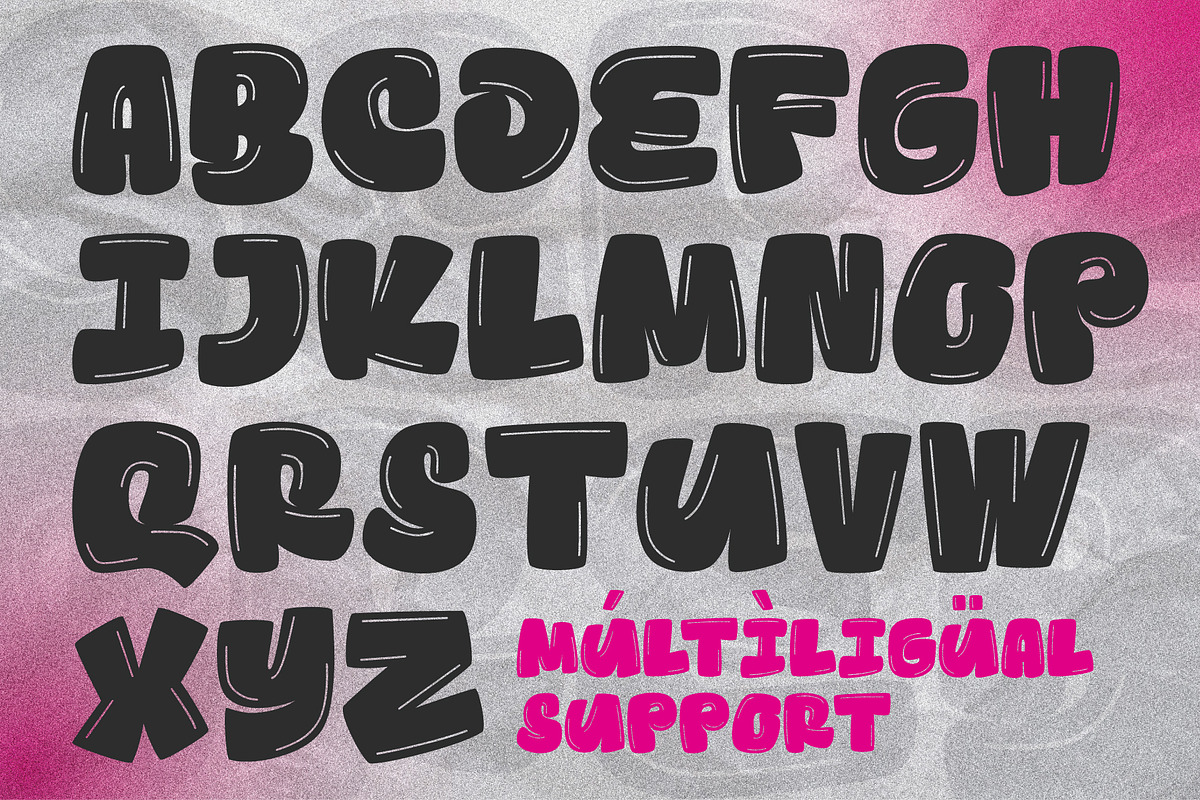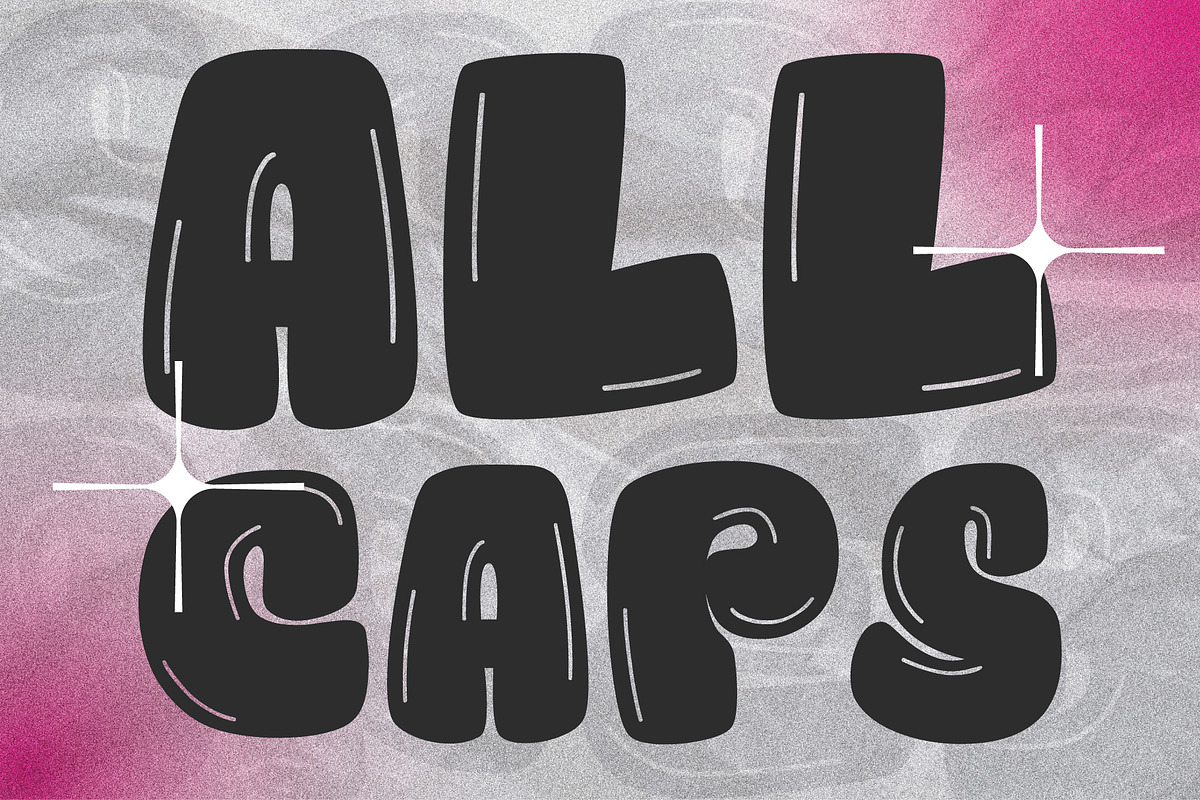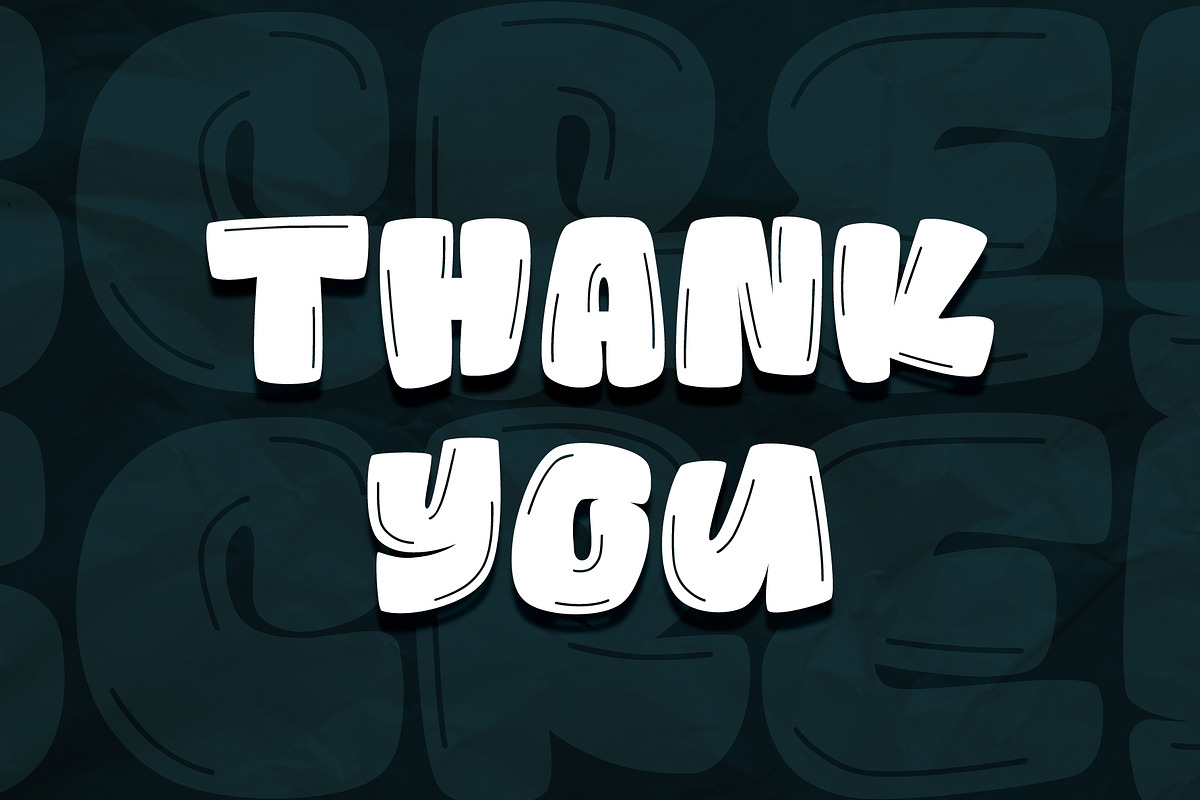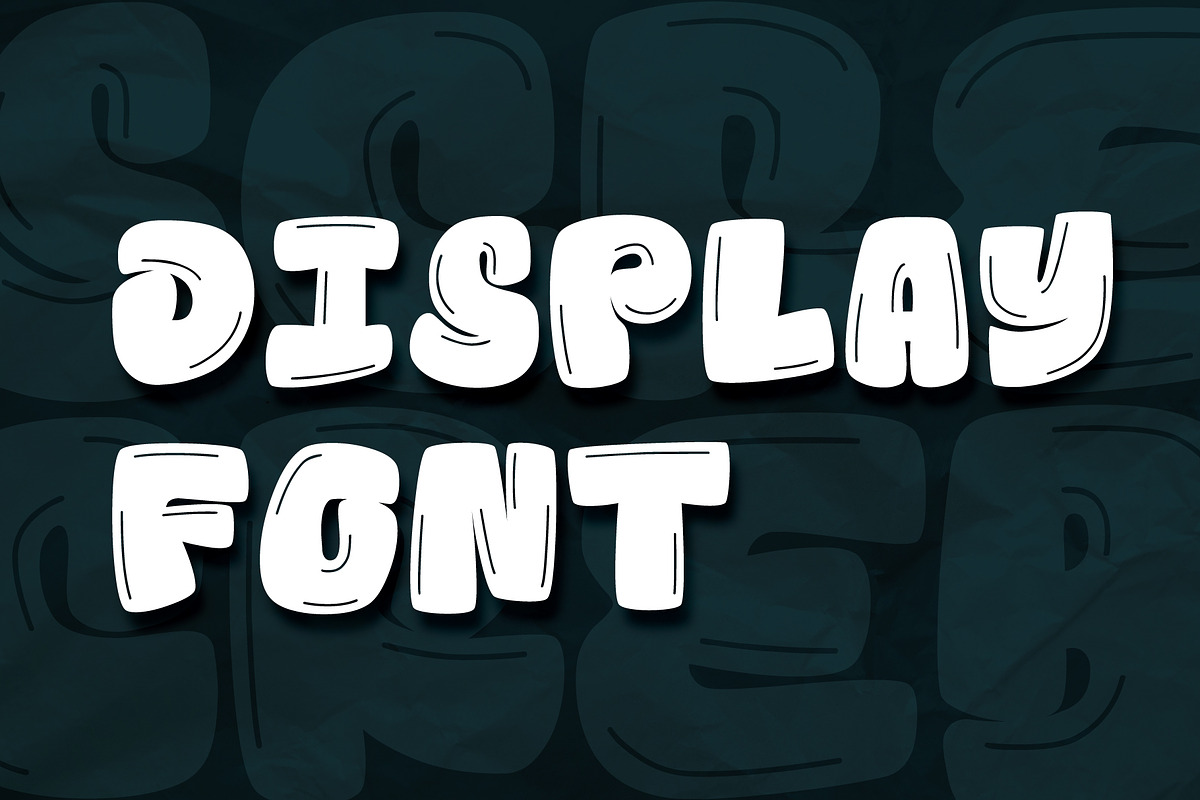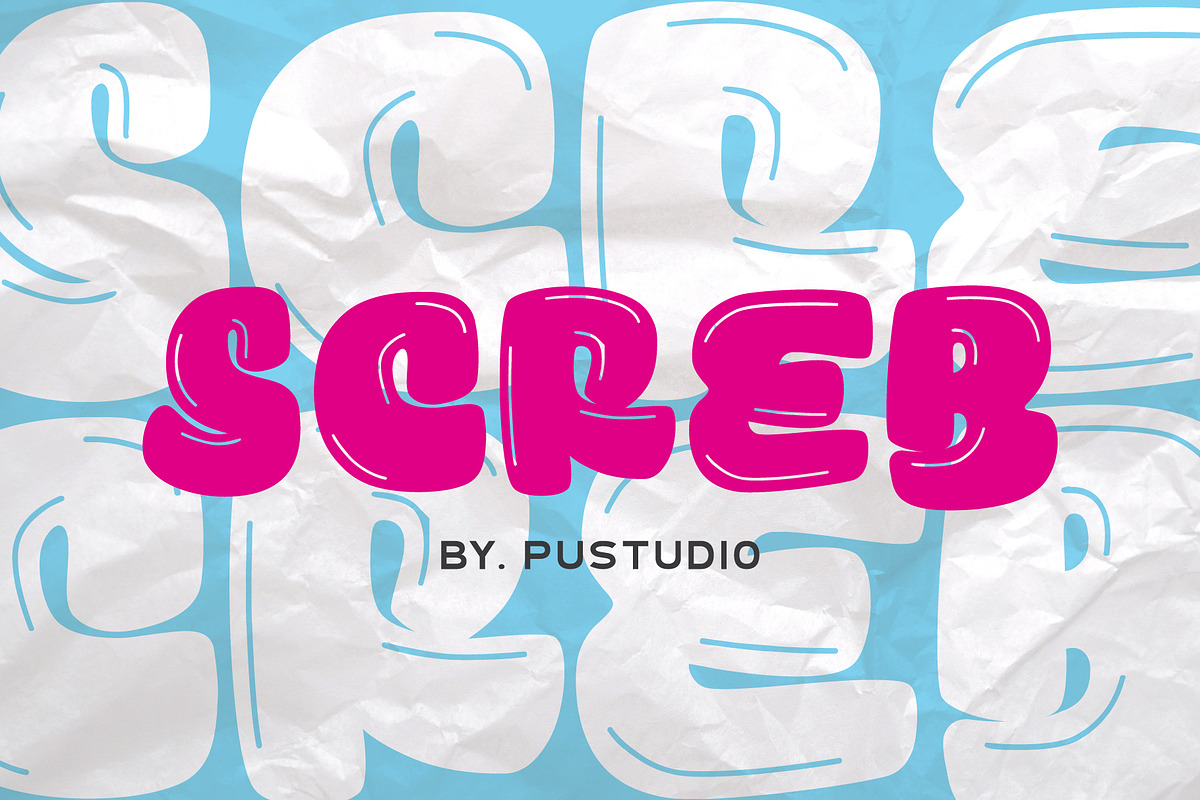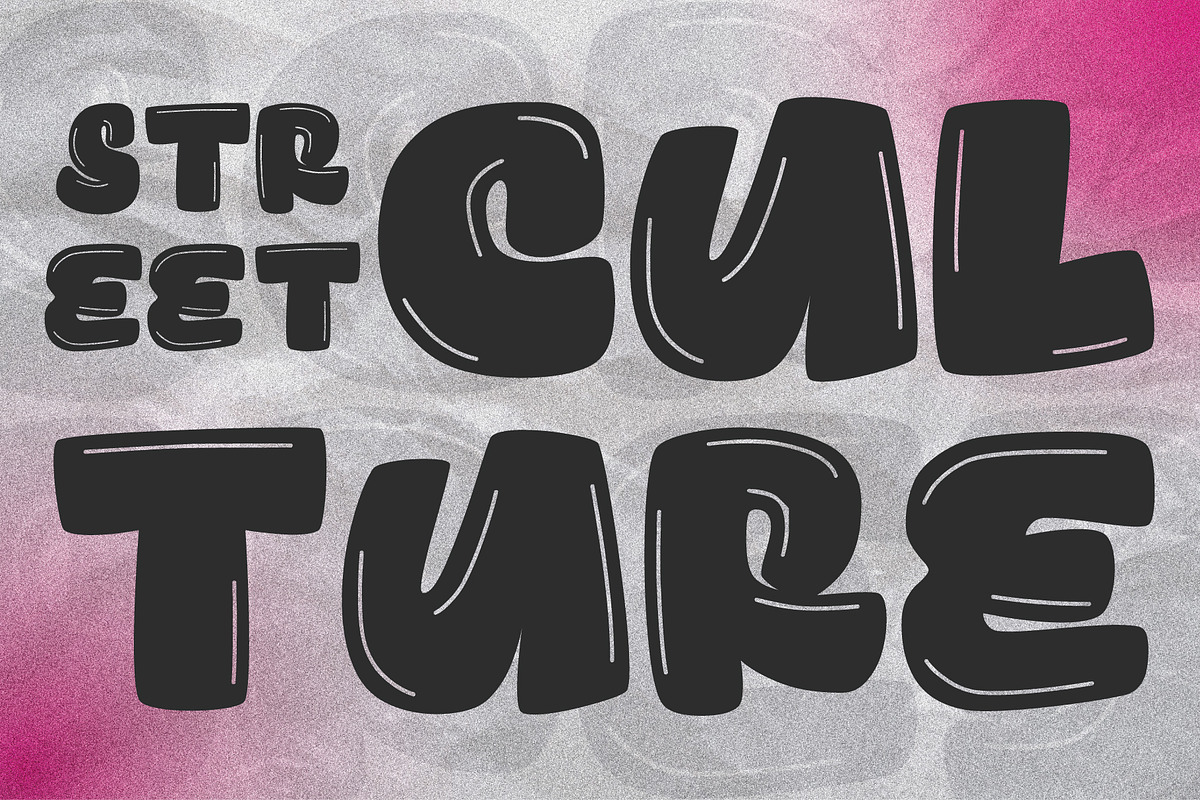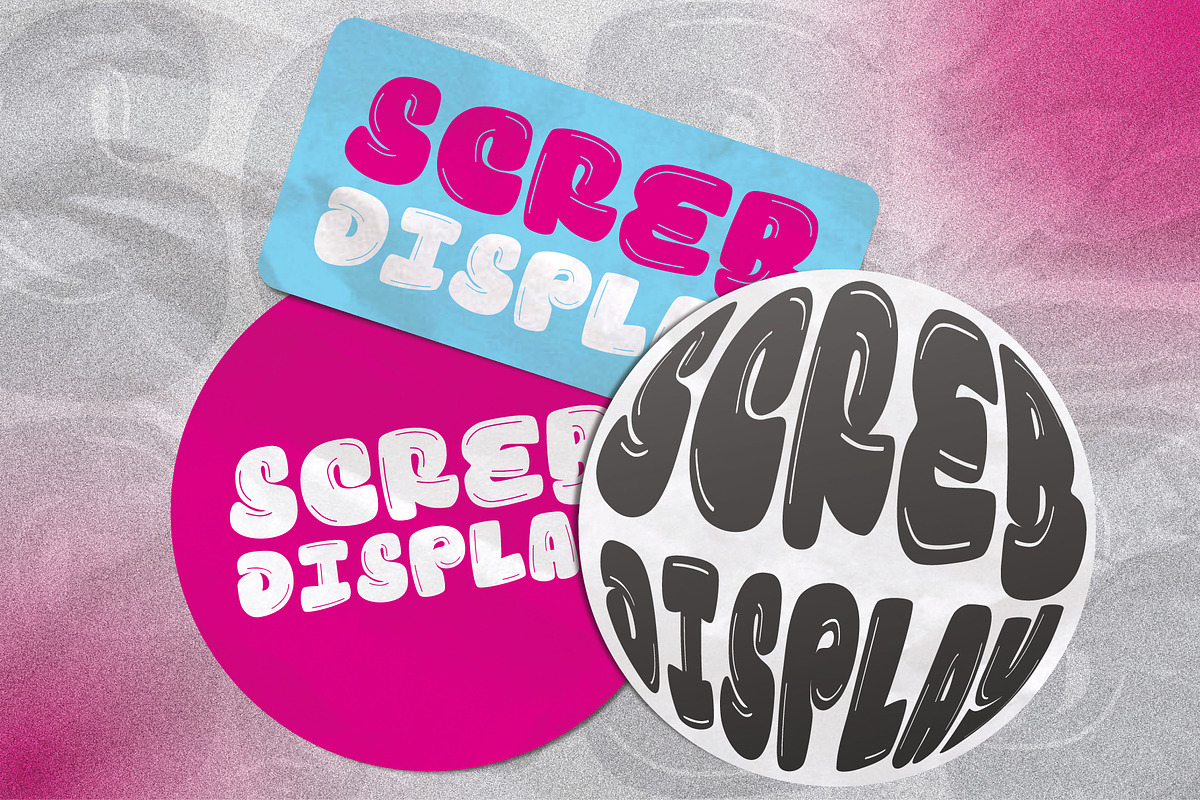
SCREB
SCREB is a display style font that has the impression of bubbles.
Having a playful feel, this font looks spontaneously cute and not stuffy, so it’s perfect for logo design projects, t-shirts, hats and so on.